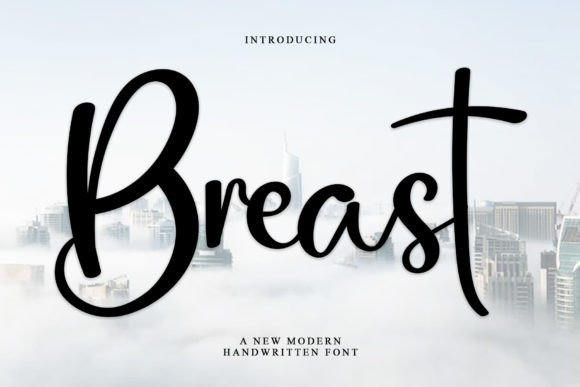
The Cozy Charm of Breast Font: A Designer’s Delight
As a designer, I’ve had my fair share of font hunting struggles. I recall working on a project for a client’s autumn-themed cafe, desperately searching for a font that captured the warmth and coziness of the season. That’s when I stumbled upon Breast Font, a delightful and enchanting typeface that instantly stole my heart. With its graceful letterforms and warm, earthy tones, this font brings a sense of nostalgia and whimsy to your designs, making it perfect for autumn-themed projects, seasonal greetings, and nature-inspired branding.
- ✅ Unique and elegant letterforms that evoke a sense of autumnal charm
- ✅ Warm and earthy tones that add coziness to your designs
- ✅ Highly versatile and suitable for various design projects, from seasonal greetings to nature-inspired branding
- ✅ Easy to read and works well in both digital and print formats
- ⚠️ Limited character set, which might not be suitable for projects requiring a wide range of special characters
- ⚠️ May not work well in very small font sizes, as some details might get lost
The Story Behind Breast Font
Breast Font was designed by a talented type designer who drew inspiration from the beauty of the fall season. With a passion for creating unique and charming typefaces, the designer aimed to capture the essence of autumn in a font that would evoke feelings of coziness and nostalgia. The result is a delightful and enchanting typeface that has captured the hearts of designers and crafters alike.
| What is Breast Font best suited for? | Breast Font is perfect for autumn-themed projects, seasonal greetings, and nature-inspired branding. |
| Is Breast Font available in different font weights? | Currently, Breast Font is available in a single font weight. However, the designer may release additional weights in the future. |